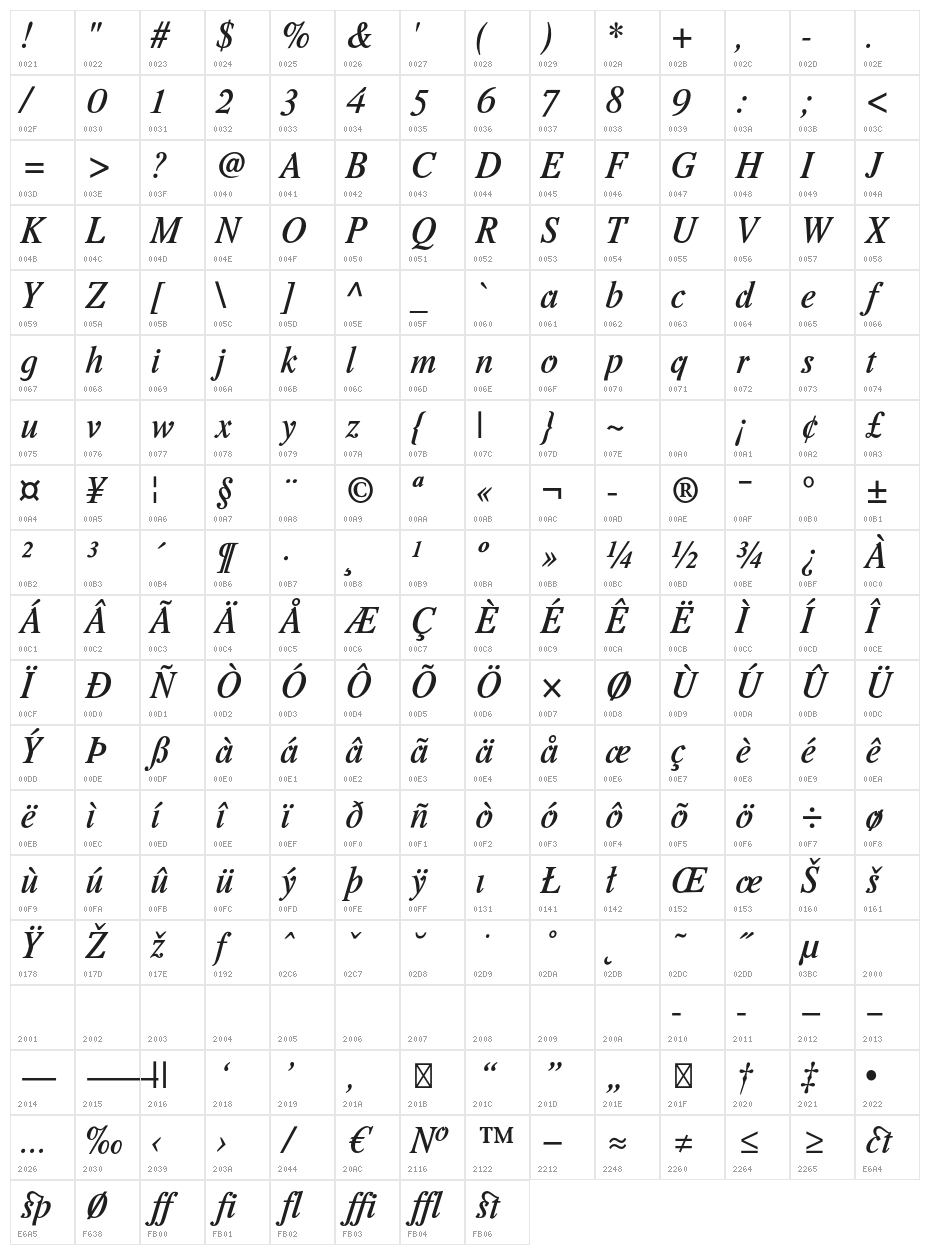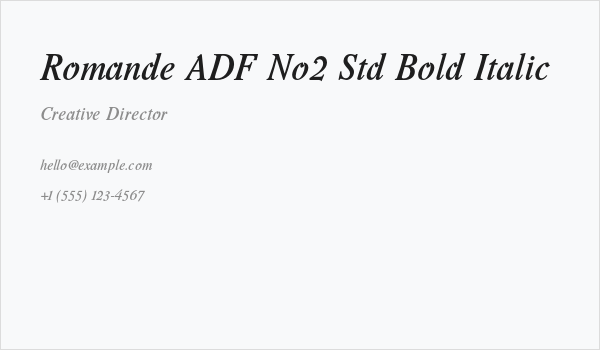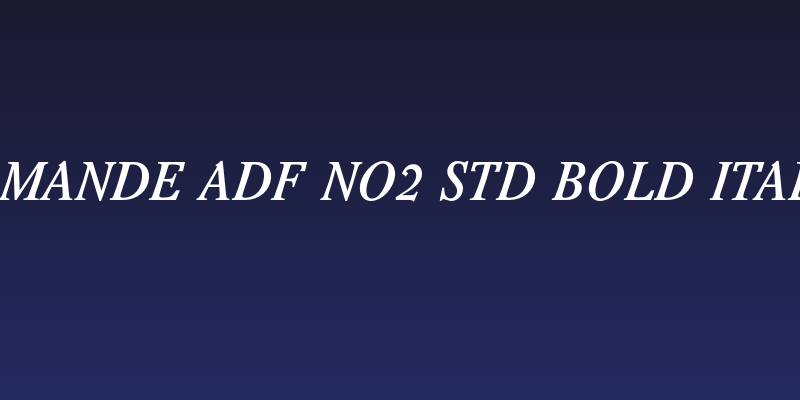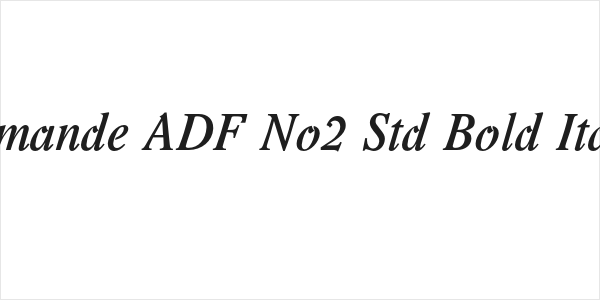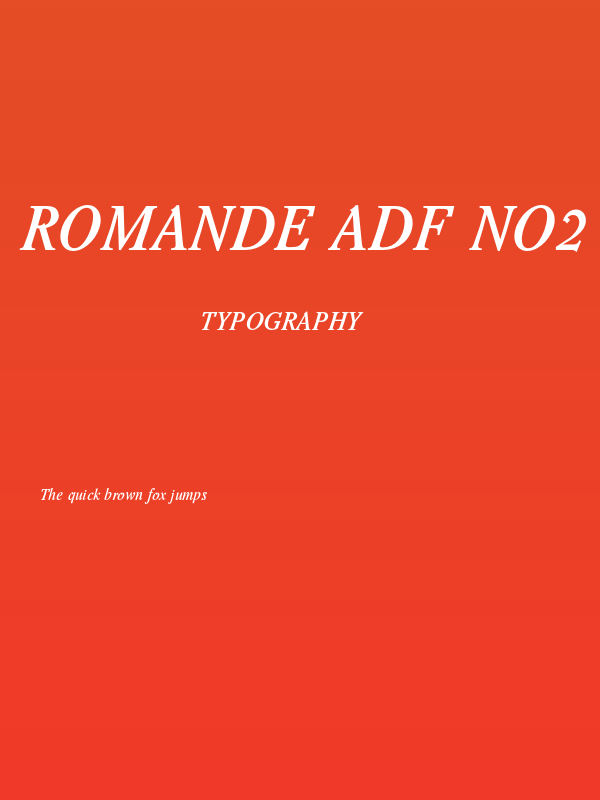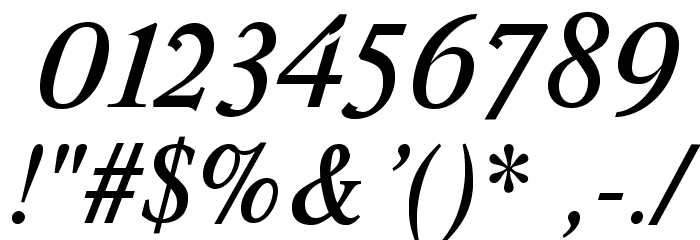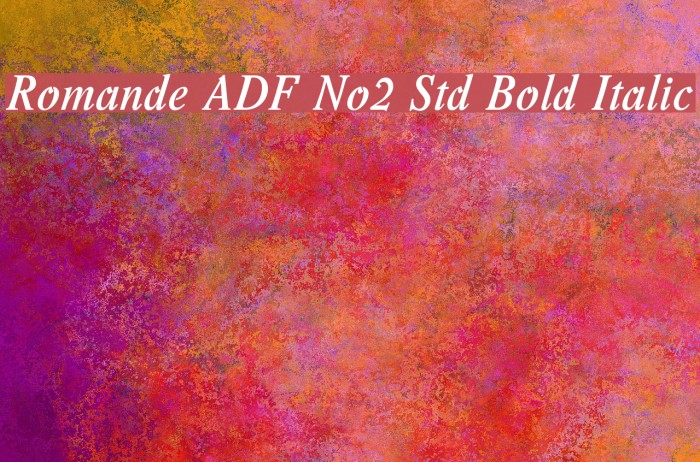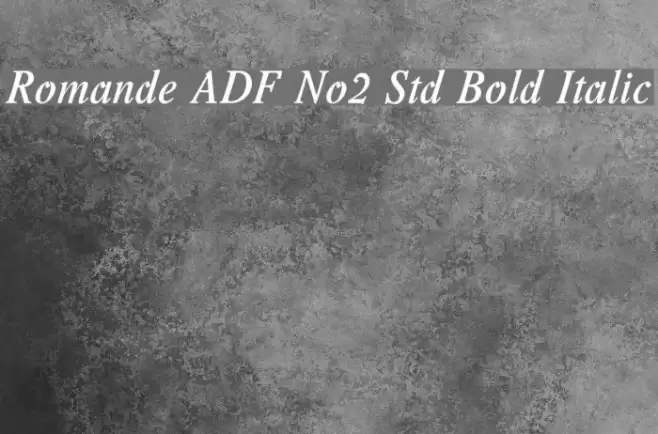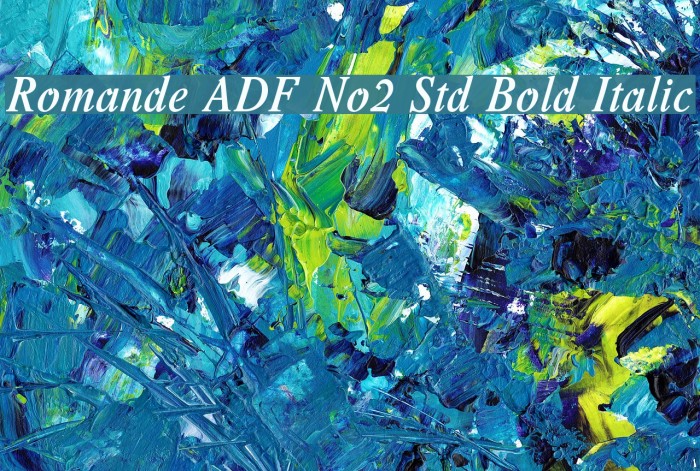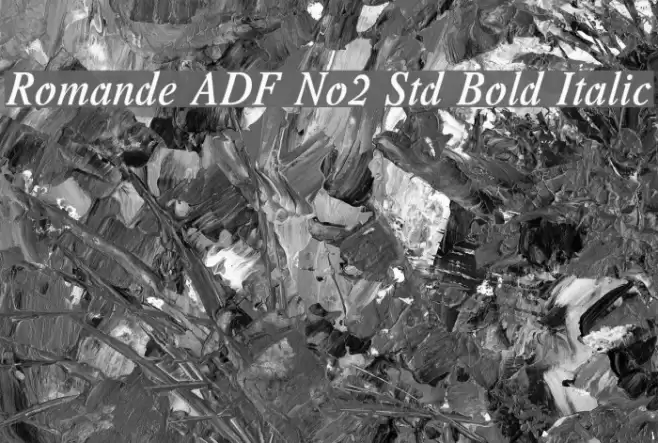
Romande ADF No2 Std Bold Italic Font
Romande ADF No2 Std Bold Italic Description
This font exhibits a classic serif style with a bold and italicized presentation, offering a sense of elegance and sophistication. The characters are well-defined with a slight slant, enhancing readability while maintaining a formal appearance. The serifs are pronounced, adding a traditional touch, and the overall design is balanced with medium contrast in stroke thickness. The numerals and special characters are consistent with the alphabetic characters, ensuring a cohesive look across all text elements.
| Use Case | Headlines, Logos, Editorials |
| Proposed Projects | Ideal for formal invitations, editorial headlines, book covers, and branding materials that require a touch of sophistication. |